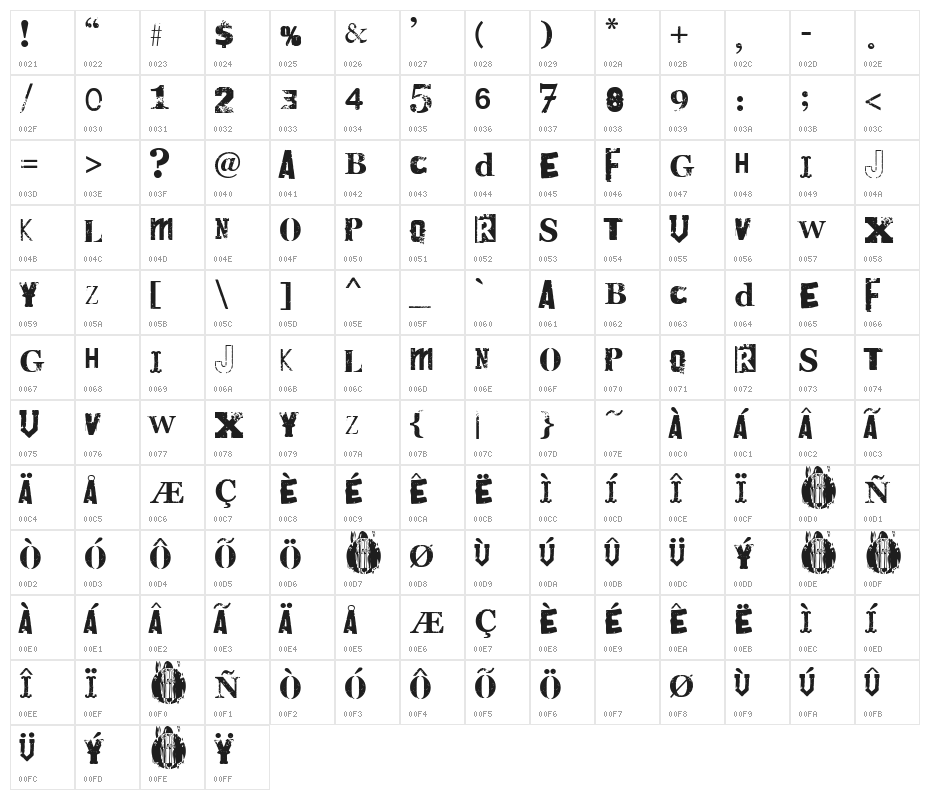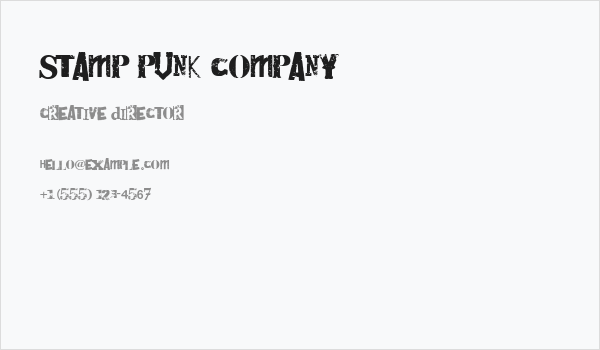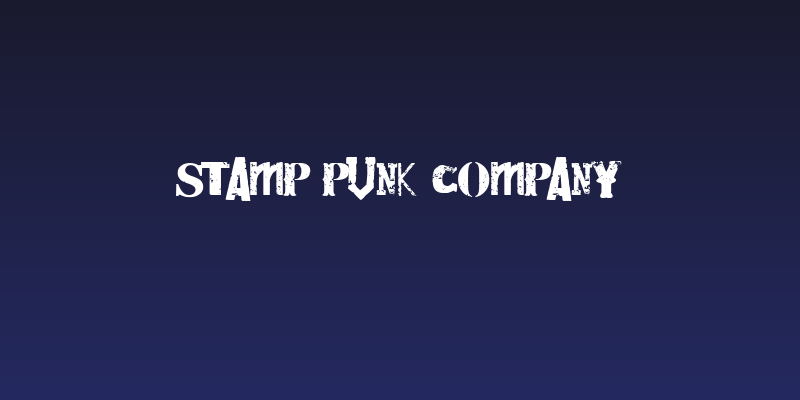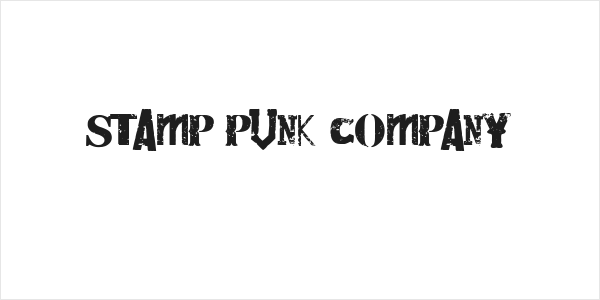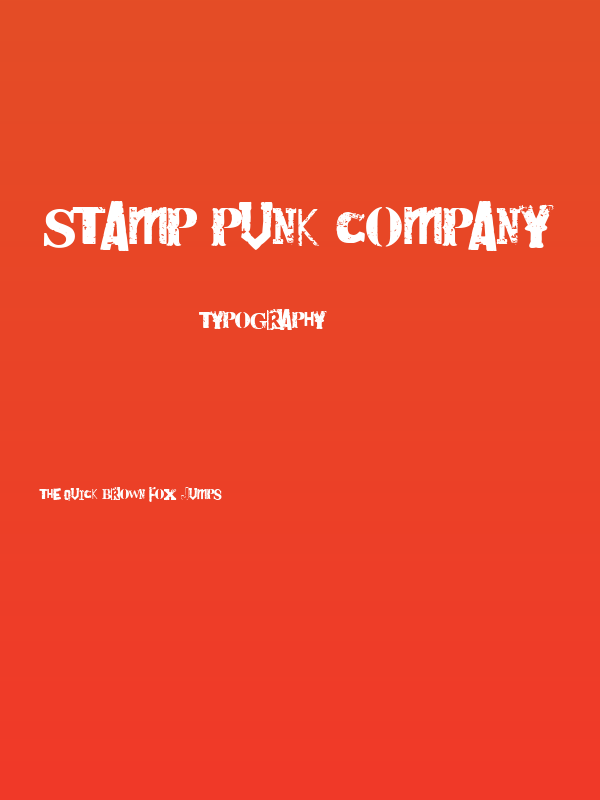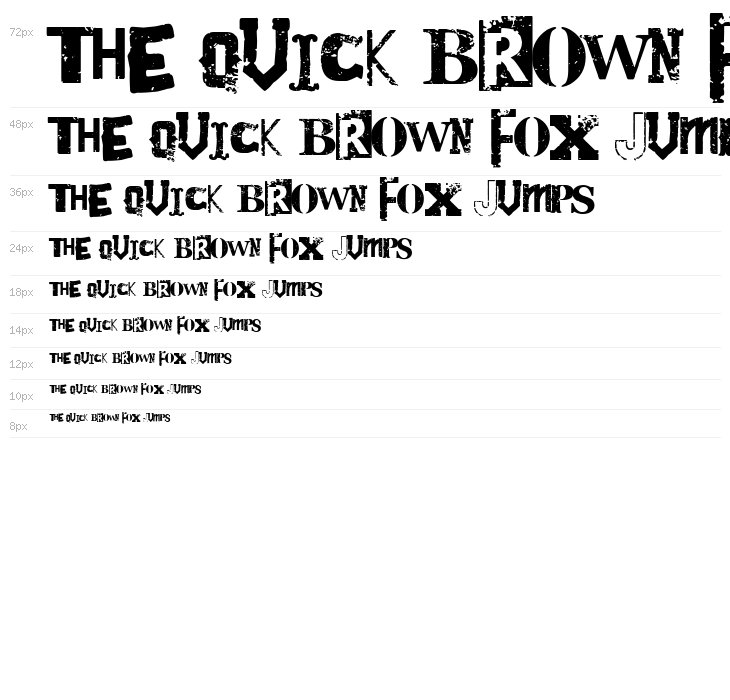
Stamp Punk Company Font
Stamp Punk Company Description
This font features a bold and distressed style, reminiscent of vintage typewriter or industrial stamp impressions. The characters are heavily textured, giving them a worn and rugged appearance. Each letter has unique imperfections, adding to the overall grunge aesthetic. The uppercase and lowercase letters maintain a consistent design, with the uppercase being more pronounced. Numbers and special characters follow the same distressed theme, making them suitable for projects that require a gritty and raw look. The font's boldness and texture make it stand out, ideal for creating a strong visual impact.
| Overall Style | Vintage, Industrial |
| Proposed Projects | Ideal for posters, album covers, branding for edgy or alternative products, and any design needing a rugged, vintage look. |